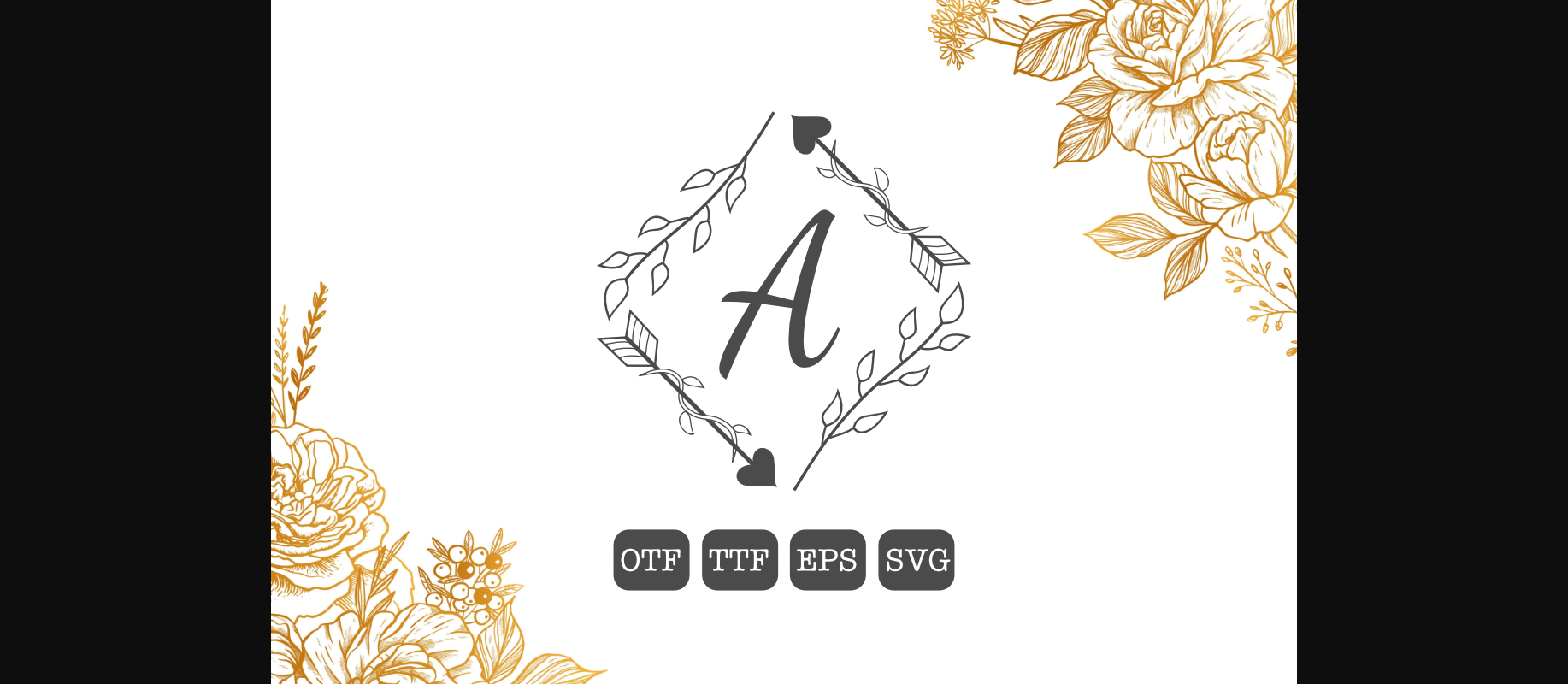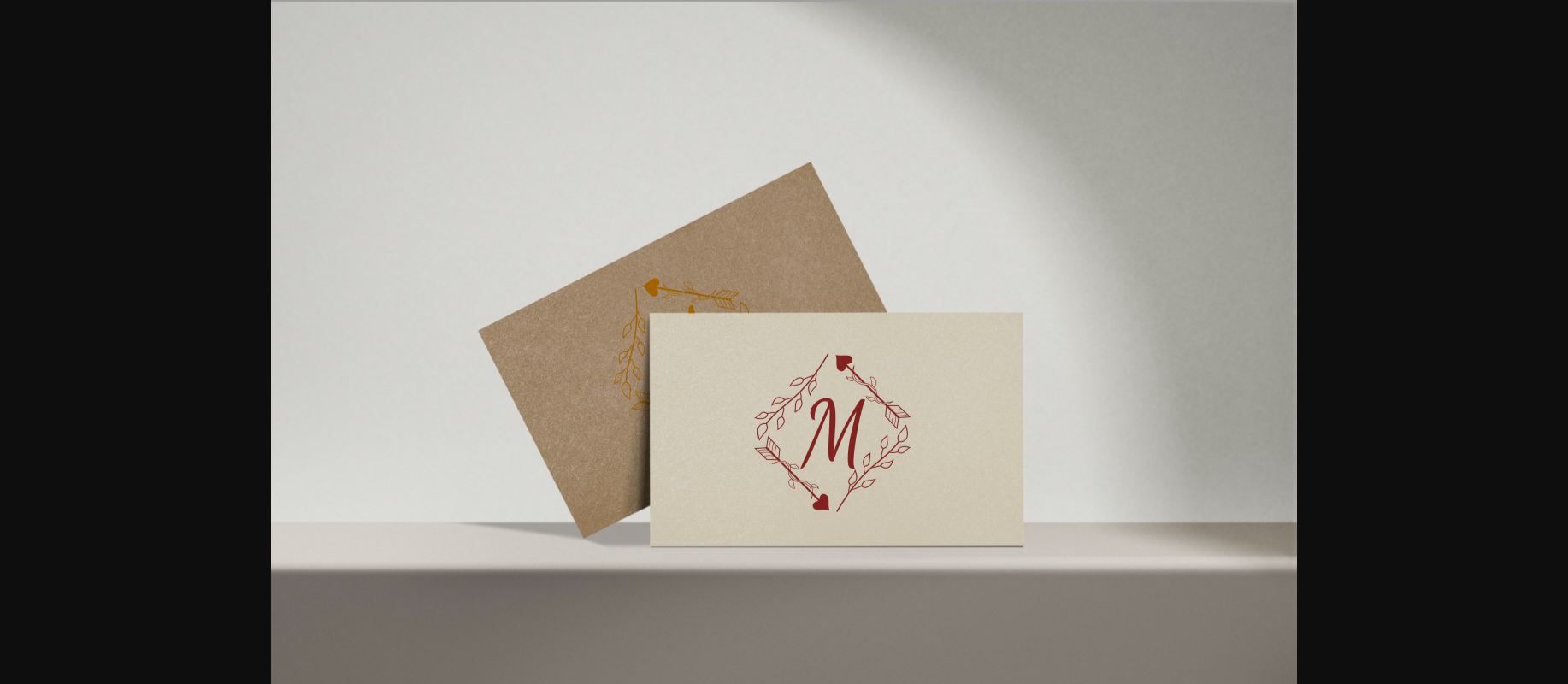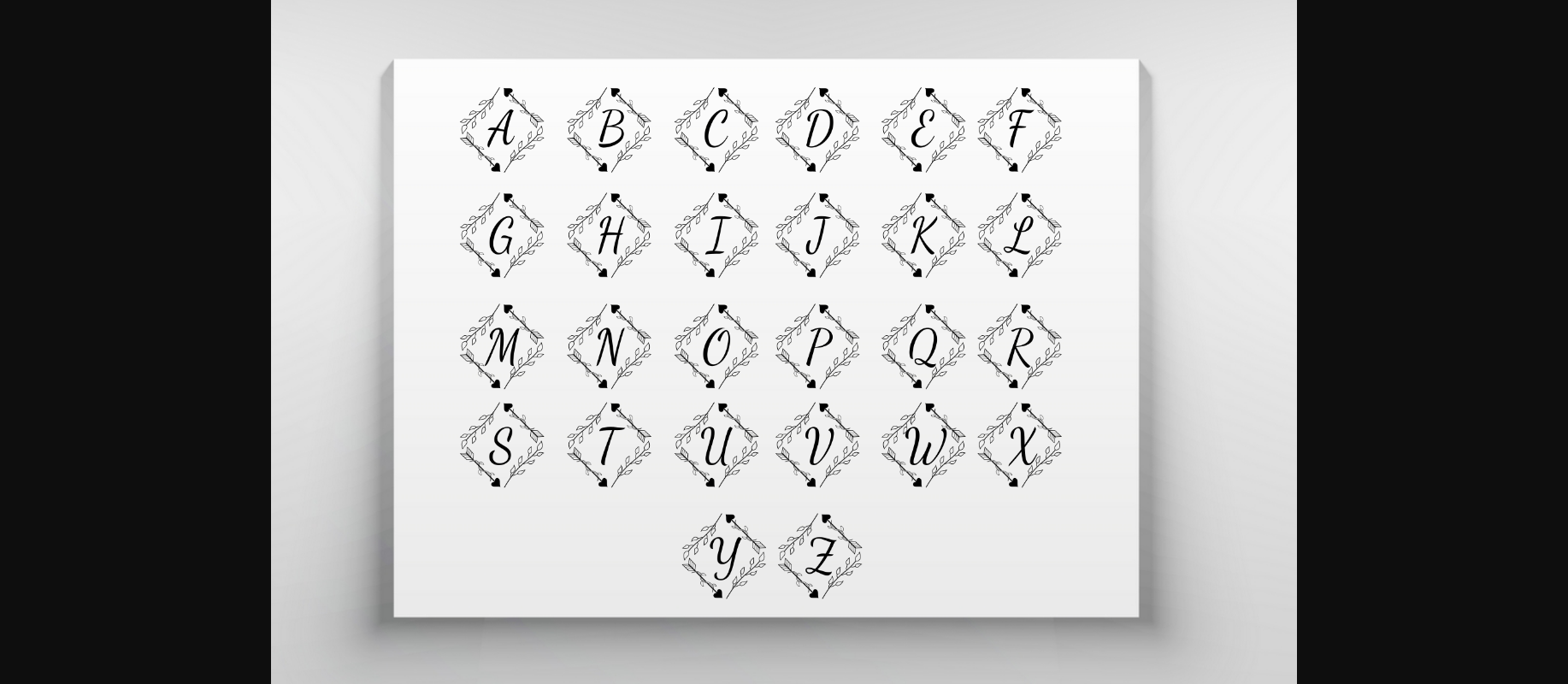
About Armiana Font
Introducing Armiana Monogram Font, a captivating decorative font adorned with beautiful leaf and floral motifs. This unique font combines the elegance of monogram designs with the organic charm of nature. With its delicate curves and intricate details, Armiana Monogram Font adds a touch of sophistication and personalization to any project. Embrace the enchantment of Armiana Monogram Font and elevate your designs with its timeless beauty